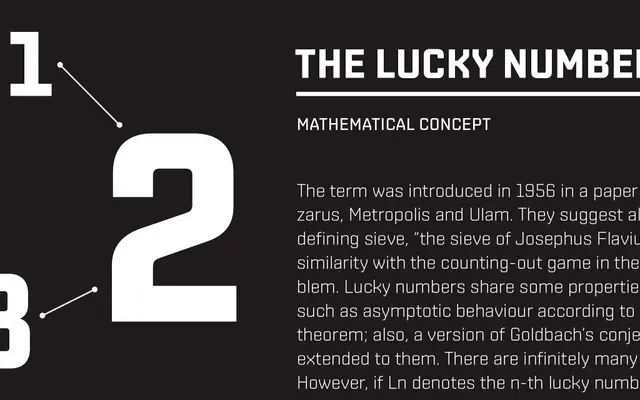
A clean geometric sans in seven weights with italics and variable font support, suited to branding, editorial and large-scale display work.
Spanning Thin to Bold across 16 static styles plus Roman and Italic variable fonts, Shentox is built for legibility at scale with precise detailing across all weights. The family is broad enough to carry branding systems and editorial hierarchies without feeling generic. Real-world use includes EVE Online, Ready Player One and UEFA Europa League, pointing to its particular effectiveness in identity and campaign contexts.
Shentox is a contemporary sans-serif with clean, geometric construction and high legibility across weights, consistent with the geometric sans subcategory.